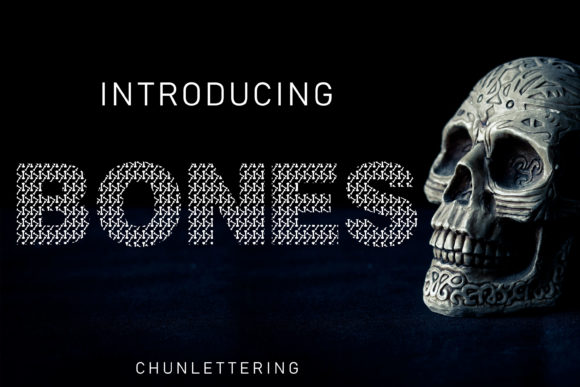
Bones Font: A Bold Statement for Your Brand's Identity
Unleash the raw energy and untamed spirit of Bones Font, a decorative masterpiece crafted to turn heads and leave a lasting impression. This font is not just a collection of letters; it's a visual symphony that dances off the page, captivating audiences and igniting imaginations.
Bones Font is the perfect partner for your branding endeavors, whether you're designing logos, t-shirt prints, or creative products. Its unique style and distinctive charm will elevate your designs, making them stand out from the crowd.
Picture your logo, adorned with the bold strokes and playful curves of Bones Font. It's a statement piece that demands attention, a visual representation of your brand's personality and values. The font's unique letterforms create a dynamic and eye-catching effect, ensuring that your logo will be etched into the minds of your audience.
Imagine your t-shirt designs, infused with the raw energy of Bones Font. The font's playful spirit and bold character will transform ordinary t-shirts into wearable works of art. Your customers will love flaunting their Bones Font-embellished tees, becoming walking advertisements for your brand.
Bones Font isn't just confined to logos and t-shirts; it's a versatile performer that shines in various creative projects. Whether you're designing posters, flyers, or social media graphics, Bones Font will add a touch of boldness and originality that sets your work apart.
With Bones Font, you'll have a font that not only enhances your designs but also resonates with your audience on an emotional level. Its distinctive style evokes a sense of adventure, freedom, and individuality, making it the perfect choice for brands that want to connect with customers who appreciate authenticity and creativity.